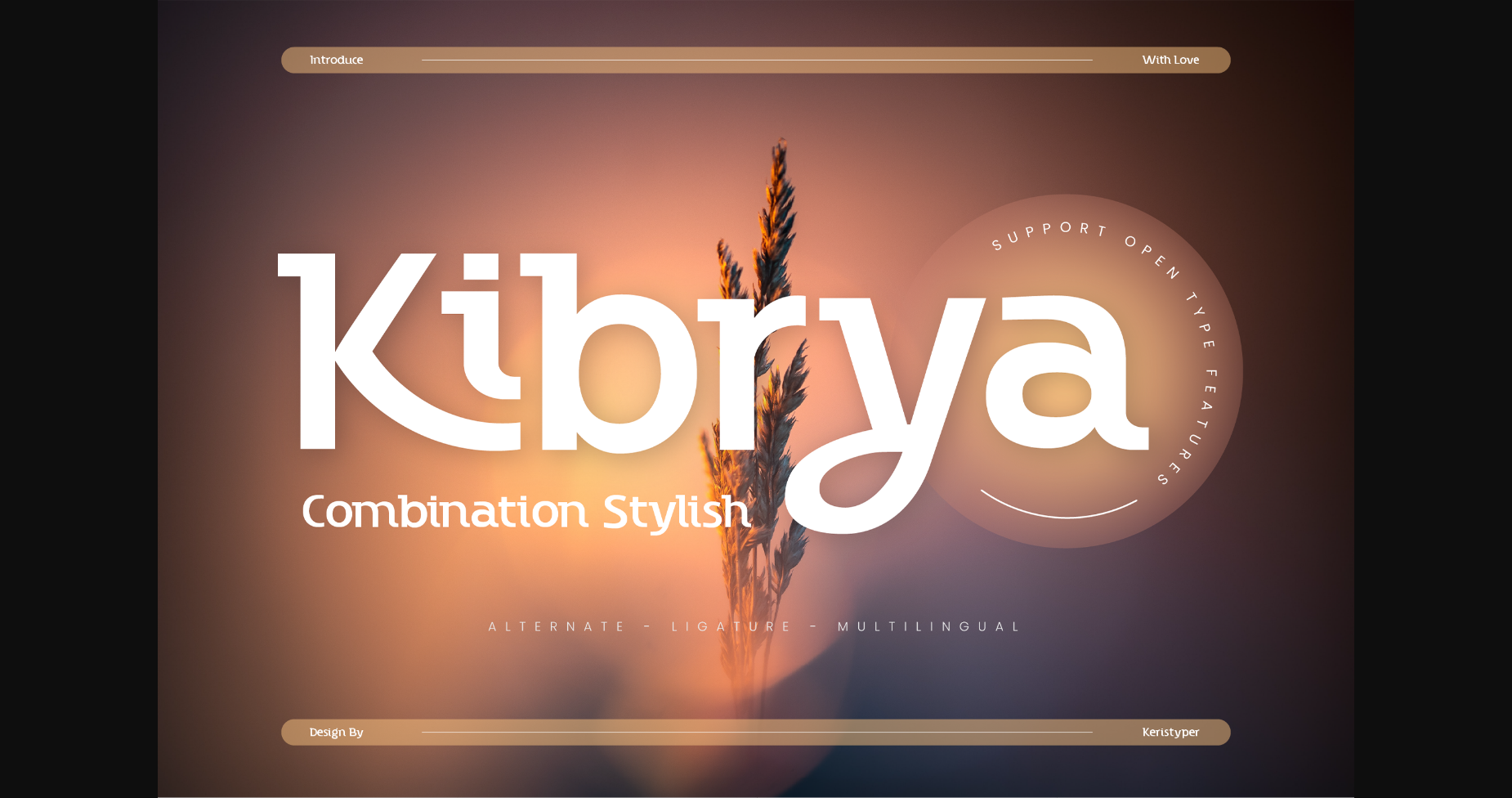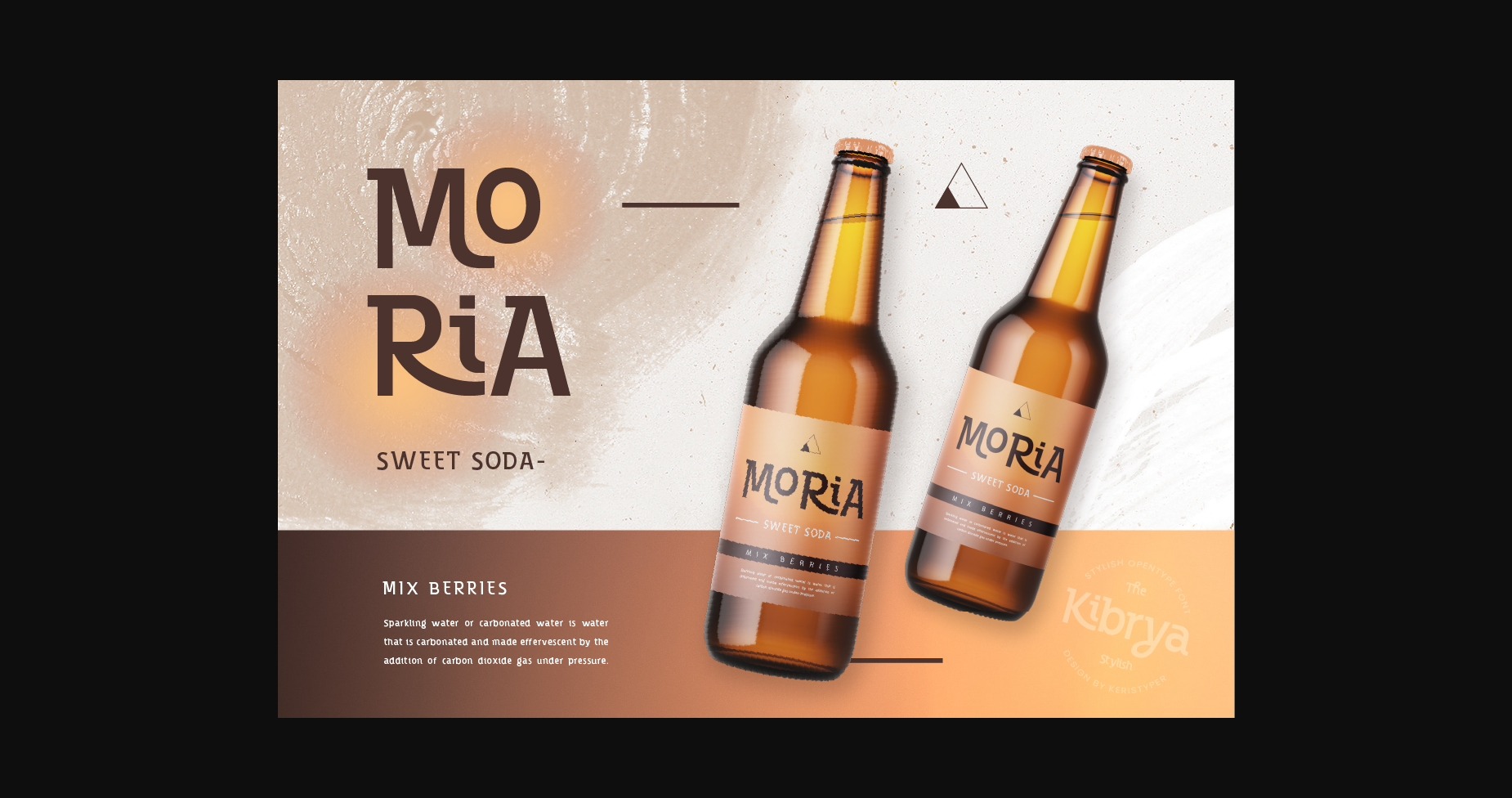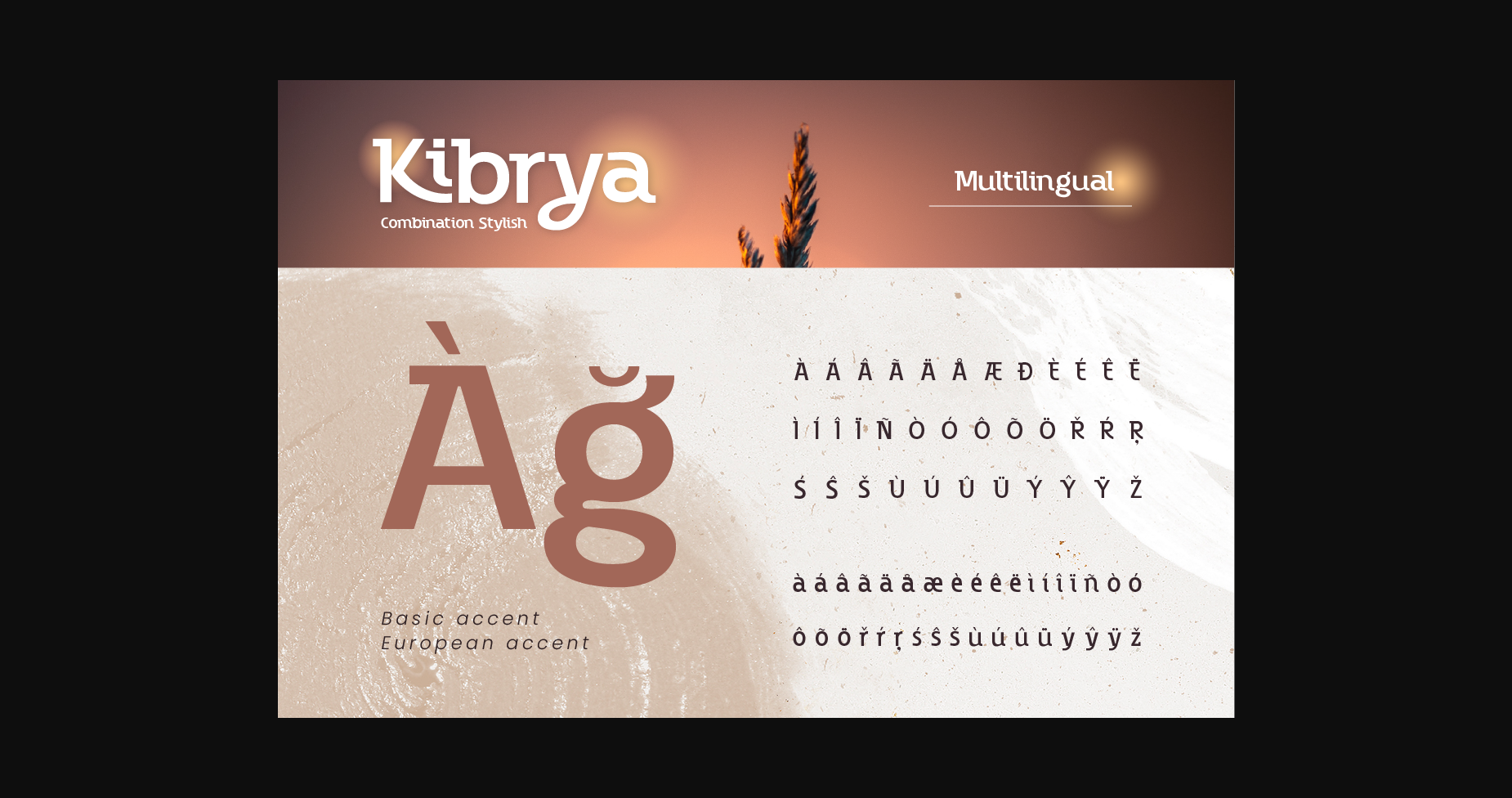
About Kibrya Font
Introducing Kibrya font! A playful blend of serif and sans-serif, perfect for adding a touch of fun to your designs. This font is versatile and can be used in a variety of projects, from logos to posters to social media graphics. Its unique combination of classic and modern styles creates a fun and fresh look that will make your designs stand out. Get Kibriya font today and add some playful charm to your next project!